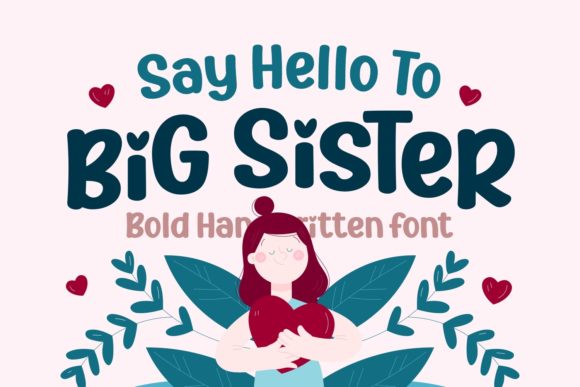
Dive into the world of enchanting script fonts with Big Sister – a captivating creation from Creative Fabrica Fonts. This remarkable font exudes charm and playfulness, making it the perfect choice for adding a touch of warmth and coziness to your creative projects.
Crafted with meticulous attention to detail, Big Sister boasts a bold and expressive personality that's sure to leave a lasting impression. Its free-flowing curves and playful strokes dance across the page, creating an irresistible look that's both unique and eye-catching.
Unleash your creativity and explore endless possibilities with Big Sister. Whether you're designing greeting cards, crafting personalized invitations, creating heartfelt posters, or adding a personal touch to your social media posts, this font will elevate your designs and captivate your audience.
Immerse yourself in the world of Big Sister and watch your creative vision come to life. This font is a treasure trove of endless possibilities, waiting to be discovered and explored. Embrace its beauty and let your creativity soar.